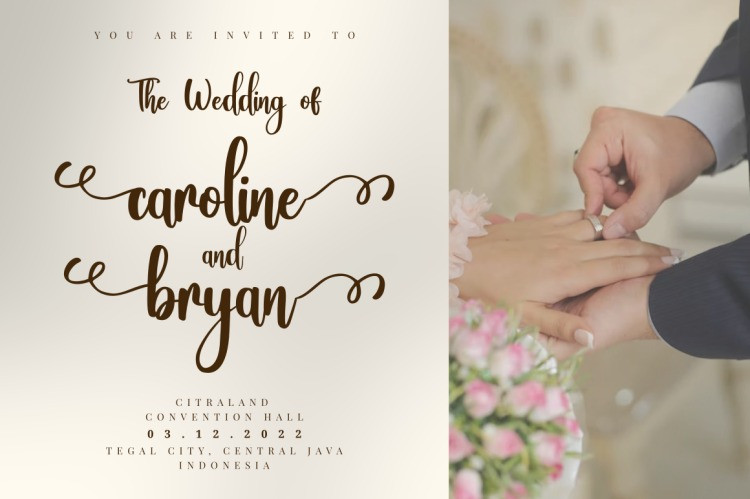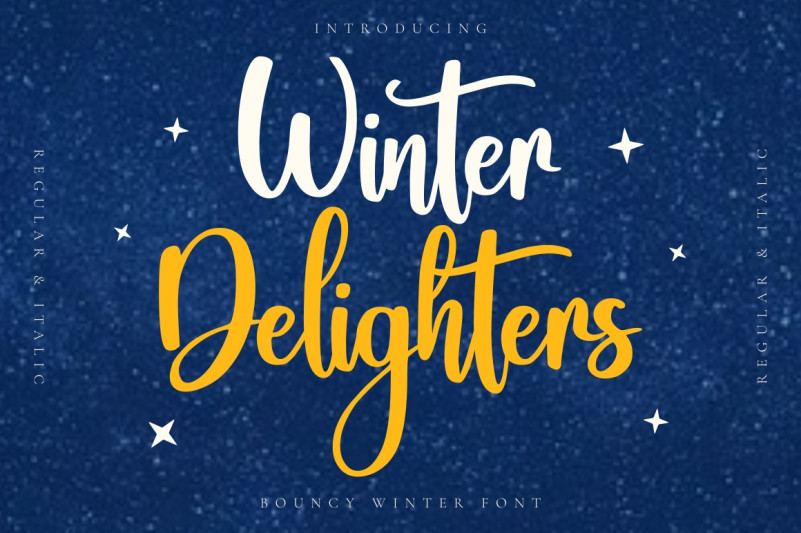
Winter Delighters Font
Winter Delighters Script font is a font created using natural handwriting with a bouncy calligraphy style that looks beautiful and impressive,
There are two font styles available, namely Winter Delighters Regular and Winter Delighters Italic.
Besides being suitable for greeting cards, Winter Delighters font is also perfect for various projects such as logos and branding, hand lettering, merchandise, advertisements, invitations, social media posts, video thumbnails, quotes and etc.